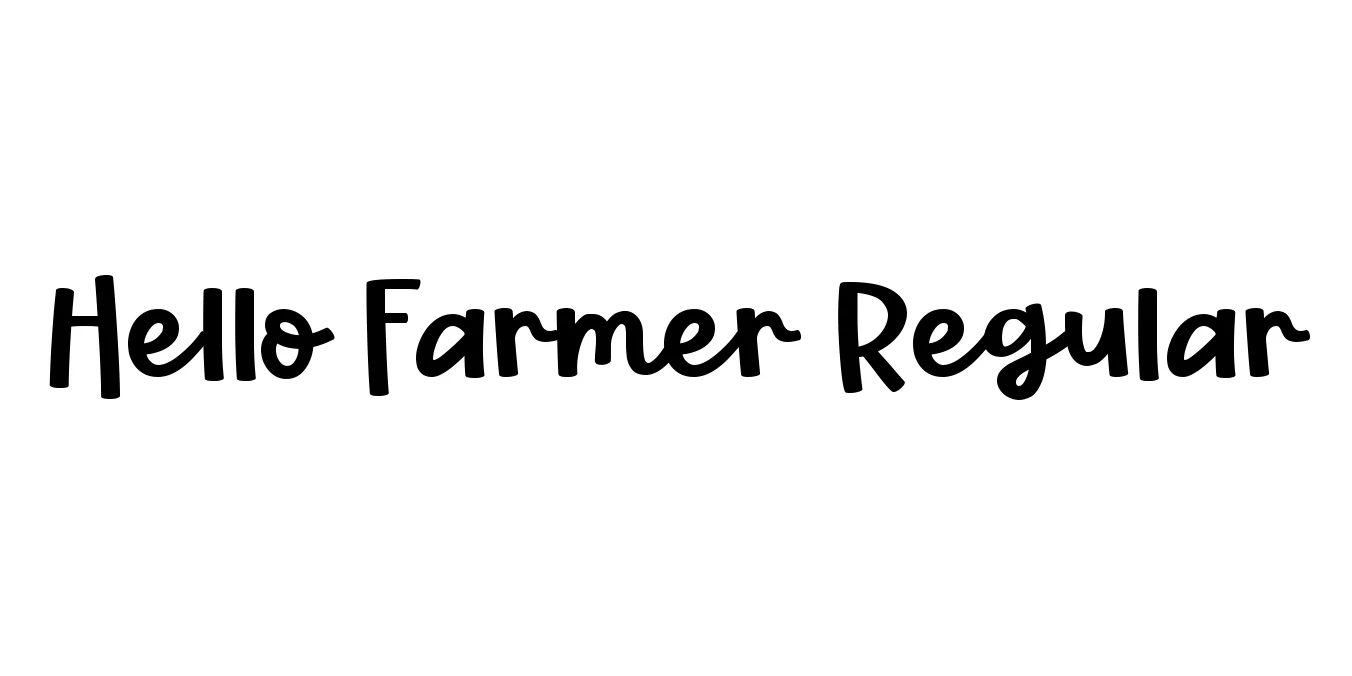
Hello Farmer Regular
Designed by Sronstudio
| Font Name | Hello Farmer |
| Category | Handwritten Script |
| Designer | Sronstudio |
Hello Farmer Regular is a charming and authentic handwritten font that captures the rustic essence of country living. Designed with a natural flow and subtle irregular edges, this typeface mimics genuine penmanship, making it an ideal choice for projects that require a touch of personality and warmth. Its organic aesthetic is particularly well-suited for artisanal brands, farm-to-table restaurants, and lifestyle blogs that prioritize a "handmade" feel.
The font features a complete set of characters including uppercase, lowercase, numbers, and punctuation, ensuring versatility across various design mediums. Whether used for product packaging, greeting cards, or digital storytelling, Hello Farmer Regular adds a layer of approachability and sincerity to visual communication, bridging the gap between professional design and casual elegance.
Hello Farmer Regular Best Uses
Ideal for creating warm and approachable identity systems for small businesses and boutiques.
Perfect for organic food products, handmade soaps, and artisanal craft labels.
Great for lifestyle quotes, Instagram stories, and engaging Pinterest graphics.
Adds a personal, hand-penned touch to rustic wedding invites and garden party flyers.